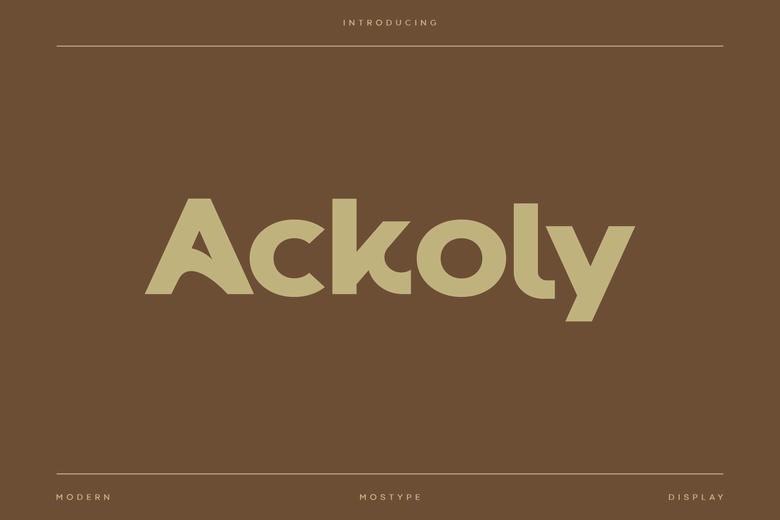
Ackoly Font
Ackoly is a modern geometric display typeface with round corners in the shape of soft radius and strict, low contrast strokes. It has compact and confident shapes: a signature arch-form A that creates a bridged aperture, a single-story a and open c/e with wide counters and blunt wedge terminals that endows words with a clean snap.
The condensed set is a little condensed and the spacing could be tighter to help the design constructs of heavy blocky headlines that do not lose readability, and the vertically similar and softly rounded edges keep the logos premium and contemporary. The rhythm of Akkoly transitions beautifully between wordmarks to editorial titles, packaging, posters and signage, anywhere you need a clean tech-savvy voice that has a bit of a flair.